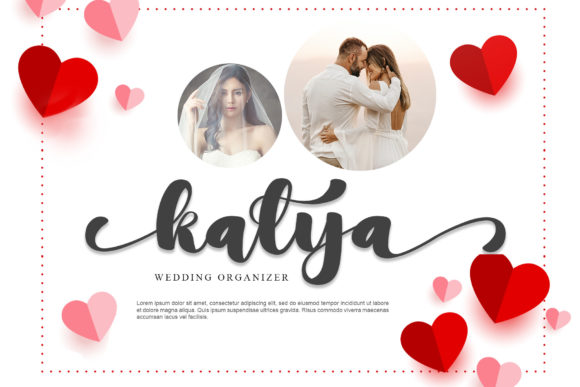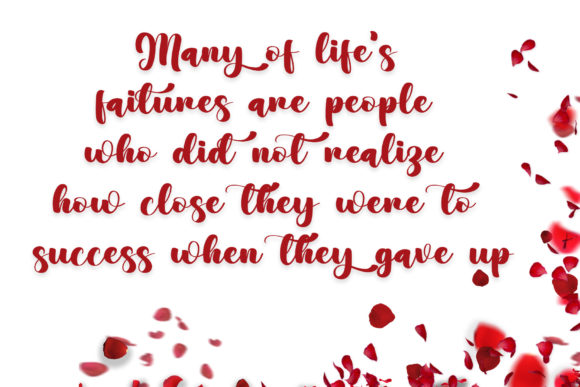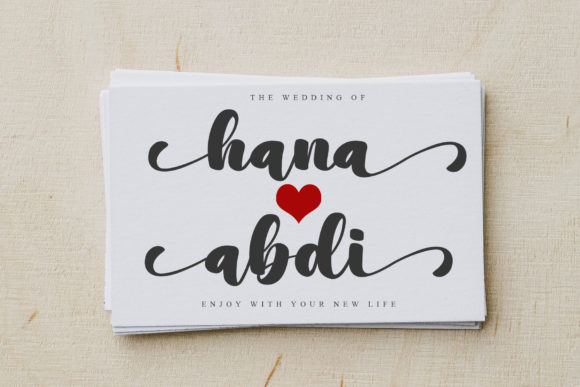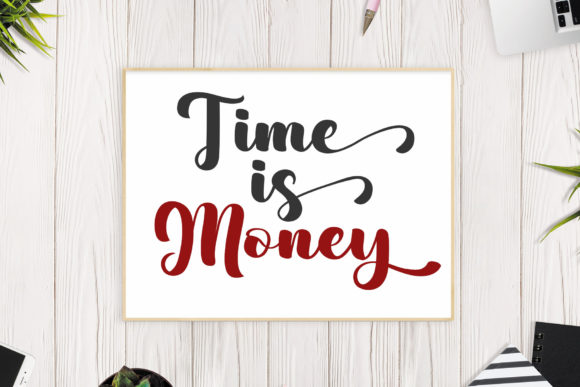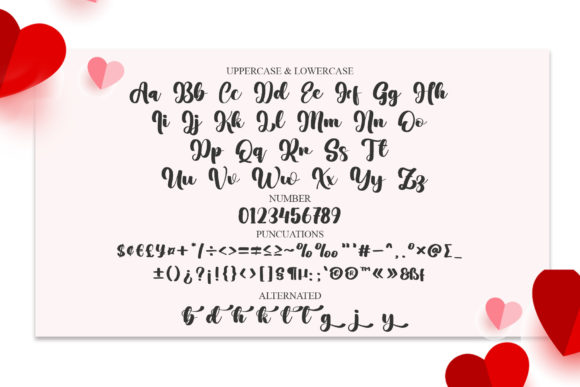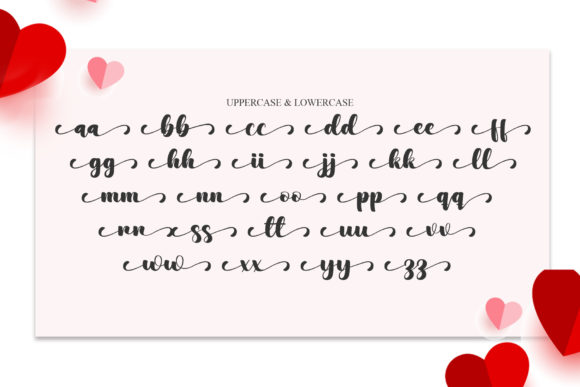
The Power of Handwritten Touch: Introducing Betterlove Font
There’s something special about holding a handwritten note from a loved one – the imperfections, the character, the love that goes into every stroke. As designers, we strive to capture that same essence in our digital creations, and that’s where the Betterlove Font comes in.
| 👤 Author | Bintang Studio |
This delicate, elegant, and flowing handwritten font is designed to bring a touch of warmth and personality to any design project. With its beautiful and well-balanced characters, the Betterlove Font is a versatile and valuable addition to any designer’s toolkit, making it perfect for a wide range of designs, from wedding invitations to marketing materials.
- Unique Characteristics: Betterlove Font features a unique blend of modern and vintage elements, with intricate details and ornate flourishes, making it ideal for creative and artistic projects
Designer Review: Betterlove Font
As a designer, I was excited to dive into the Betterlove Font and see what it has to offer. ✨ The first thing that caught my eye was the beautiful, handwritten feel of the font. It’s perfect for adding a touch of warmth and personality to designs. The curves and flourishes are well-executed, making it a great choice for creative projects.
Another thing I appreciated about Betterlove Font is its versatility. It comes in a range of weights, from light to bold, which makes it easy to use in a variety of contexts. Whether you’re designing a wedding invitation or a social media post, there’s a weight of Betterlove Font that’s sure to fit the bill.
- Beautiful, handwritten feel
- Well-executed curves and flourishes
- Versatility with multiple weights
- Perfect for creative projects
- ⚠️ Limited language support
- ⚠️ Not suitable for large blocks of text
- ⚠️ Can be difficult to read at small sizes
Overall, I’m impressed with the Betterlove Font. While it may have some limitations, its unique feel and versatility make it a great addition to any designer’s toolkit. I’d definitely recommend it for creative projects where a handwritten feel is desired.
For the best results, use the Betterlove Font in conjunction with other elegant and minimalist design elements. Experiment with different font sizes and styles to create a visually appealing design.
The Betterlove Font is ideal for use in wedding invitations, branding materials, and other design projects that require a touch of elegance and sophistication.